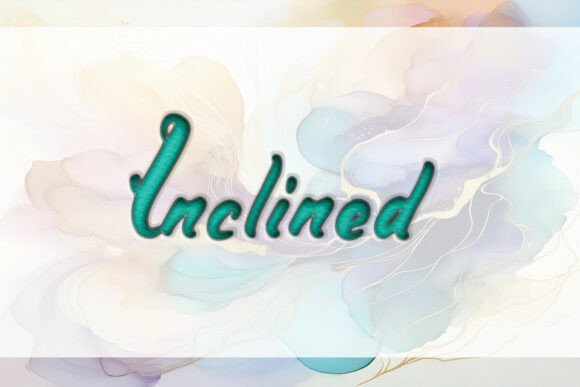
Enter Inclined Font, a versatile typography solution designed to add a touch of elegance and sophistication to your projects. Whether you’re working on eye-catching t-shirt designs, vibrant stickers, or engaging branding materials, Inclined Font is the perfect companion to help you make a lasting impression. Its smooth lines and striking simplicity make it a valuable asset for any designer looking to take their work to the next level.
Inclined Font Key Features
- Unique Characteristic: The font’s distinctive inclined design adds a touch of elegance and sophistication to any text, making it ideal for luxury branding and high-end designs.
Inclined Font Review
Overall, I think the Inclined Font is a decent addition to any designer’s toolkit. While it may not be a game-changer, it has some unique features that make it worth considering.
- Unique slanted design that adds visual interest to text
- Works well for titles, headings, and other emphasis
- Highly legible, even at smaller font sizes
- Good support for a wide range of languages
- May not be suitable for large blocks of text, as the slant can become overwhelming
- Not ideal for body text, as it can be difficult to read for extended periods
- May not be compatible with all font styles or combinations
In terms of overall impression, I’d say the Inclined Font is a solid choice for designers looking to add some flair to their projects. While it’s not a replacement for more traditional fonts, it’s a great option for adding some visual interest and creativity to your designs.
Inclined font is commonly used in:
1. Creative headings and titles.
2. Eye-catching signage and posters.
3. Unique and stylish typography.
4. Artistic and creative projects.
Alternatives to Inclined Font for Designers
Lobster Font is a script font that is perfect for creating a vintage or retro look in designs. It is ideal for use in logos, headings, and body text where a unique and elegant feel is desired. Lobster Font is a more cursive and fluid alternative to Inclined Font, with a more dynamic feel.
Pacifico Font is a beautiful, handwritten font that is great for creating a relaxed and beachy vibe in designs. It is perfect for use in headings, body text, and quotes where a casual and laid-back feel is desired. Pacifico Font is a more elegant and refined alternative to Inclined Font, with a softer and more rounded feel.
Great Vibes Font is a modern, handwritten font that is perfect for creating a fun and energetic vibe in designs. It is ideal for use in headings, body text, and quotes where a bold and playful feel is desired. Great Vibes Font is a more dynamic and expressive alternative to Inclined Font, with a more stylized and abstract feel.